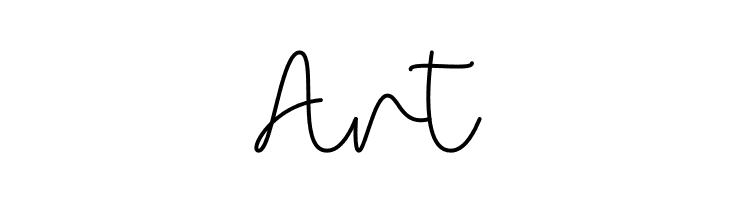
( Fonts by Graphix Line Studio )
A playful, handwritten-style font with smooth, flowing strokes.
( Fonts by Wahyu Studio )
A playful monoline font with a handwritten, whimsical style.
( Fonts by Hatf Type )
A graceful, handwritten script font with elegant, flowing letters.
A stylish, handwritten font with elongated, flowing characters and artistic flair.
An elegant, flowing script font with graceful curves and a sophisticated flair.
( Vladimir Fedotov )
A modern, sleek font with tall, narrow characters and a vertical emphasis.
( Fonts by Asep Rendi )
A bold, playful font with thick, rounded strokes and a whimsical, retro style.